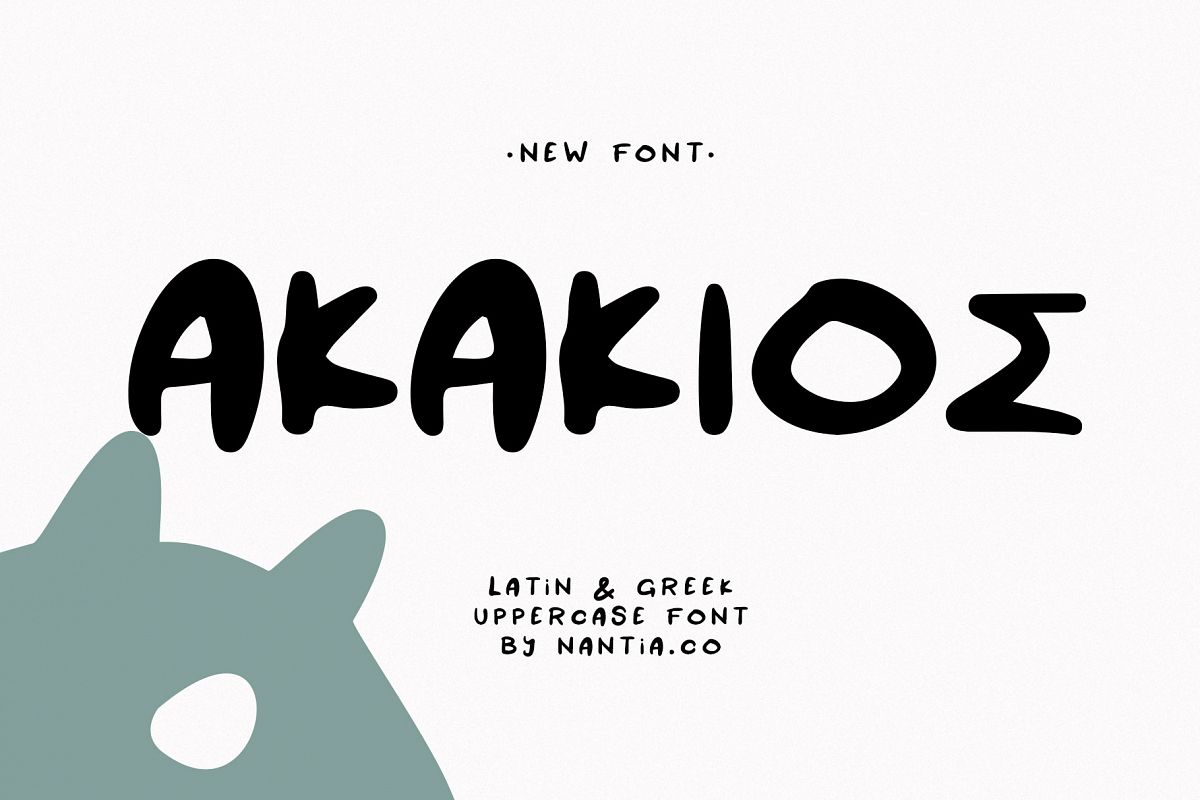
AKAKIOS UPPERCASE FONT
NF-Akakios-Regular
AKAKIOΣ UPPERCASE FONTThis font is an adorable hand-made typeface with a lot of quirkiness. From "hand-written" quotes to product packaging, merchandise, and branding projects, this font is so versatile that it can cover them all.What is included?
• Latin Characters
• Greek Characters
• Numerals